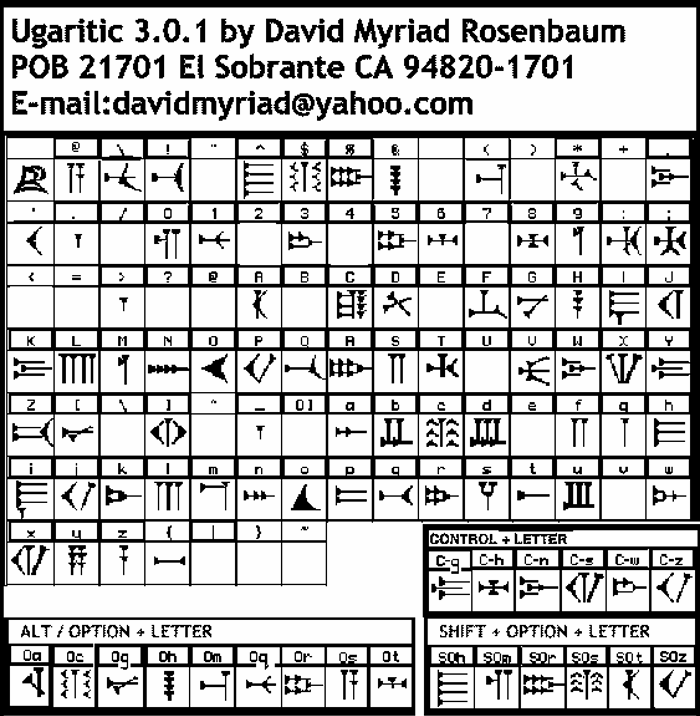
Ugaritic 3 Font
Discovered in the ruins of a Syrian temple in Ras Shamara, this
alphabet dates from 1,400 BC; it's use ended around 1,200 BC with
the destruction of the city of Ugarit. Derived from both syllabic
(symbols representing spoken syllables) cuneiform and contemporary
Phoenician alphabets, it is the first cuneiform alphabet; the
letters were scratched onto wet clay tablets with a stylus. The
order of the letters closely follows the arrangement of the
Phoenician and Hebrew letters. Unlike these neighboring alphabets,
it is consistently written from left to right.
The alphabet consists of thirty letters and a word divider symbol;
only administrative texts included the full alphabet, since they
needed the final three letters to represent sounds in the
neighboring Hurrian language. The literary texts in the local
language include a mythological cycle concerning Ba'al Hadad --
the Lord of Thunder, as well as stories of legendary heros. The
fragments that have survived give a taste of the treasures of the
lost Canaanite culture.